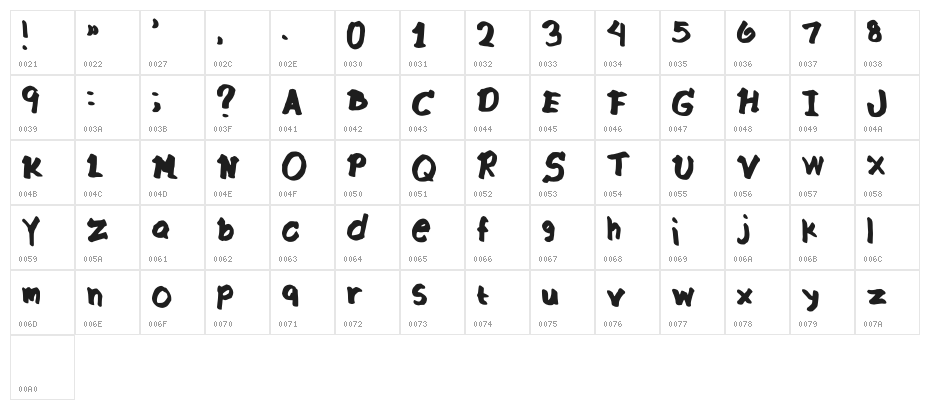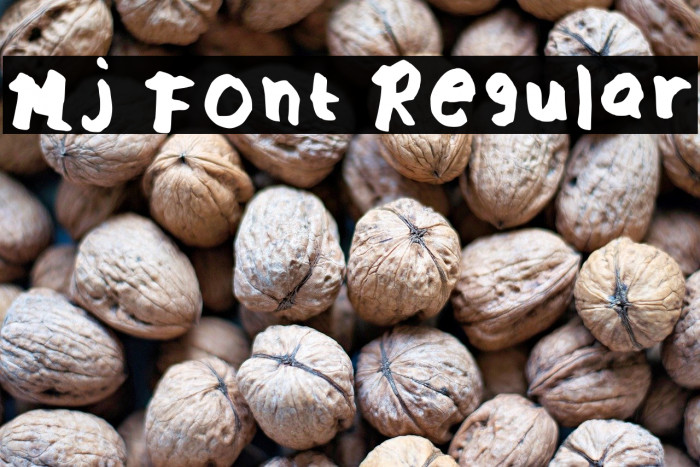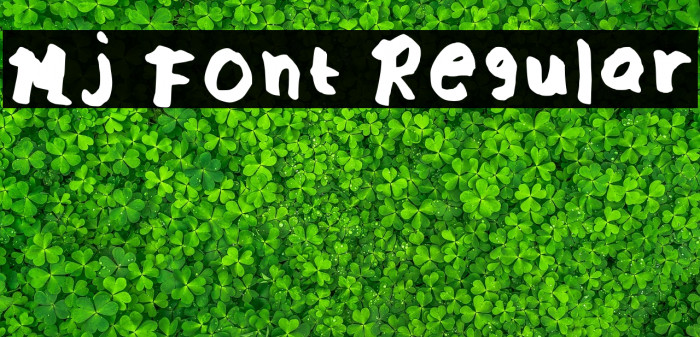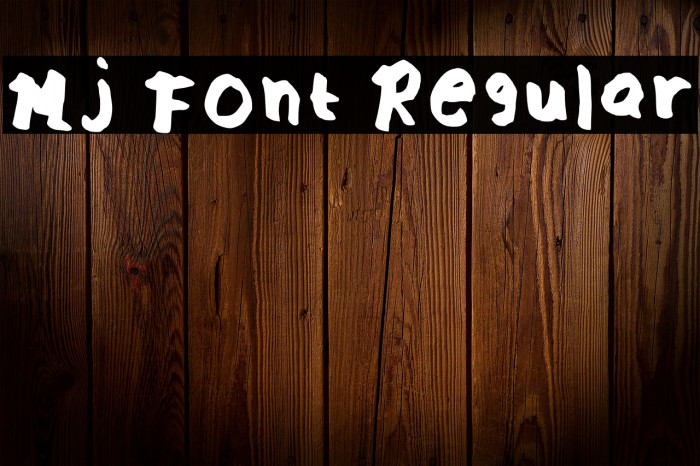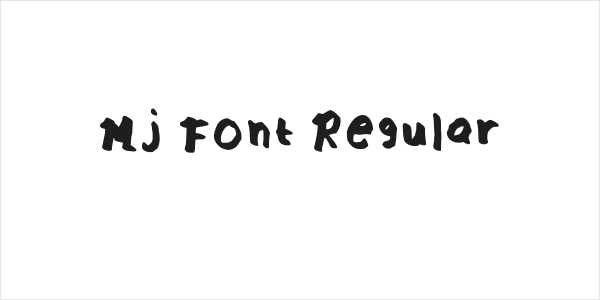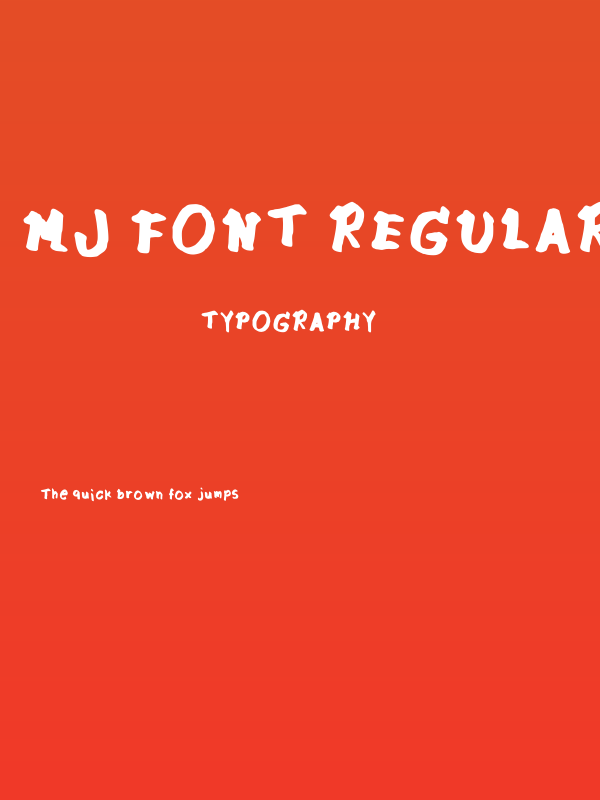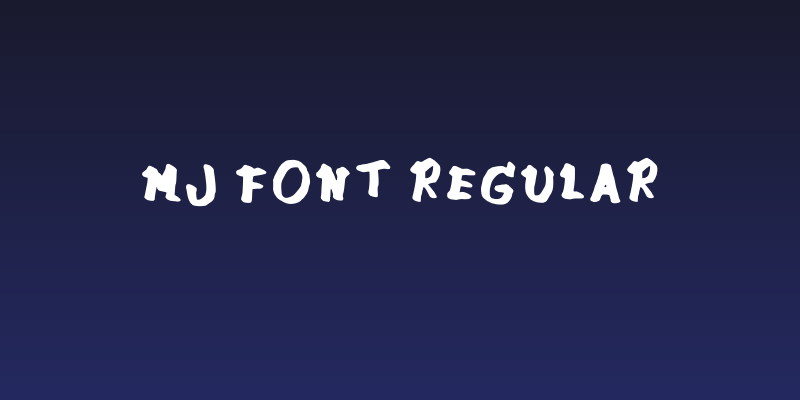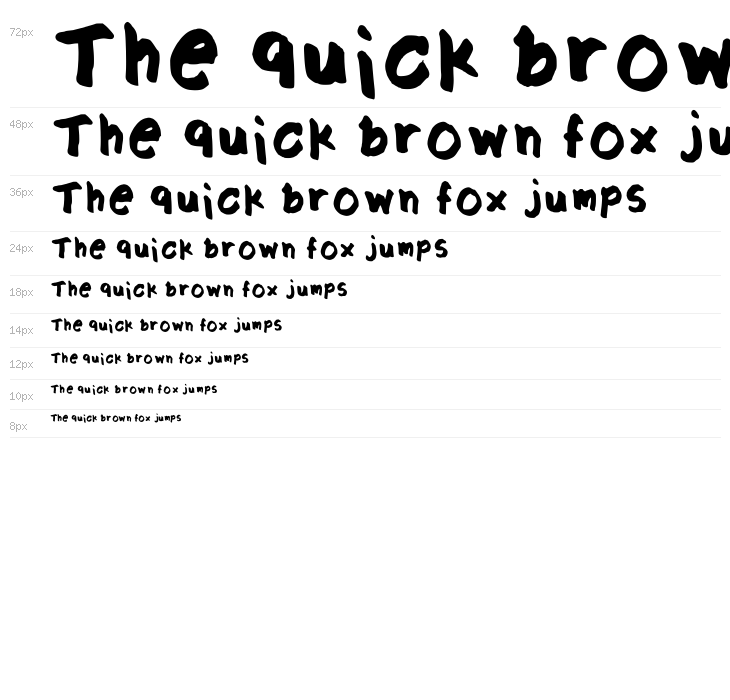
Mj Font Regular Font
Mj Font Regular Description
This font features a playful and bold handwritten style with irregular, organic shapes that give it a casual and artistic feel. The characters are slightly uneven, adding to the hand-drawn aesthetic. The uppercase and lowercase letters maintain a consistent style, with rounded edges and varying stroke thicknesses. Numbers and special characters follow the same design, ensuring a cohesive look across all elements. The font's unique appearance makes it stand out, ideal for creative projects that require a personal touch.
| Proposed Projects | Ideal for greeting cards, posters, children's books, and creative branding projects. |